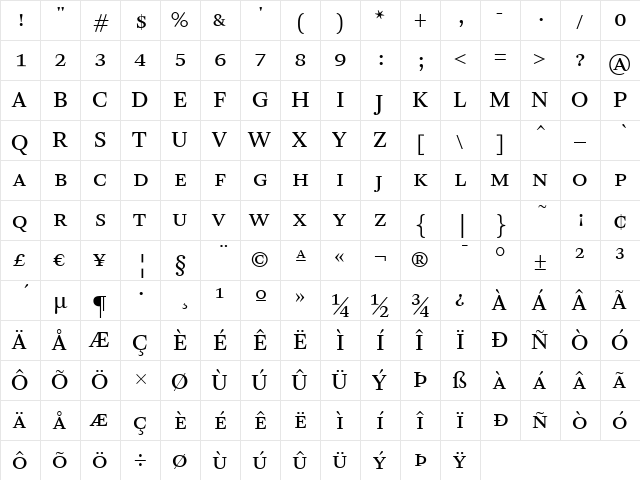
ArnhemSmallCaps Medium Font Preview
ArnhemSmallCaps Medium
ArnhemSmallCaps Medium Font Details
Design Context for ArnhemSmallCaps Typeface
ArnhemSmallCaps is a composed and adaptable typeface that performs quietly and consistently across a wide range of design contexts.